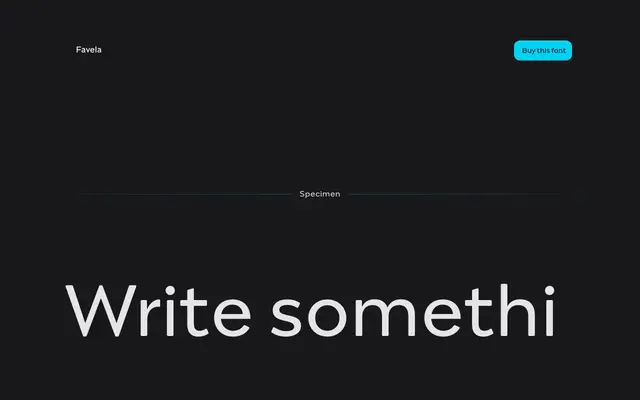
Favela
Capitalics · Mateusz Machalski
A geometric sans by Mateusz Machalski where glyph width and x-height scale progressively across the weight range, from condensed hairlines to super-extended blacks.
Spanning 22 styles across 11 weights from Hairline to Black, the family's defining trait is that width is not fixed: the lightest styles are condensed, Regular sits at a neutral proportion, and Black is super extended with shortened ascenders. Middle weights are suited to short text, while the extremes are aimed at display, branding and layout work. All styles include over 500 glyphs and a full set of small caps.
Described explicitly as geometric and sans serif; the scalable construction shifting from condensed at hairline to super extended at black is a distinctive geometric design logic.